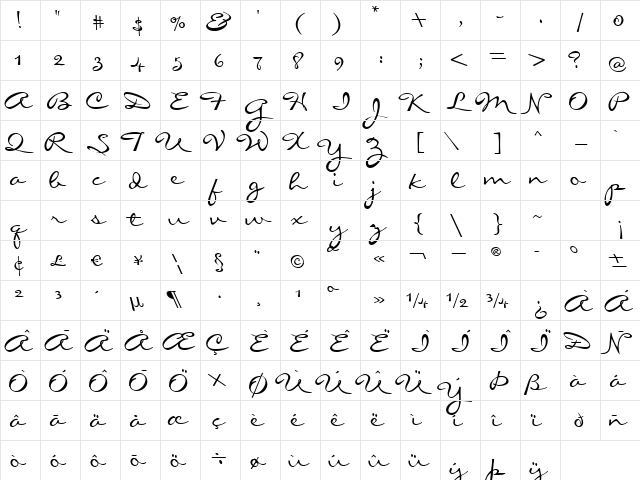
LiorahBT Upright Regular
Design Context for LiorahBT Upright Typeface
LiorahBT Upright is a composed and adaptable typeface that performs quietly and consistently across a wide range of design contexts.